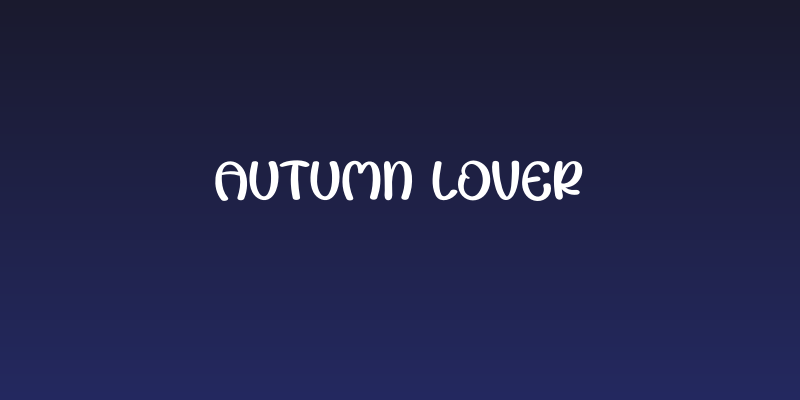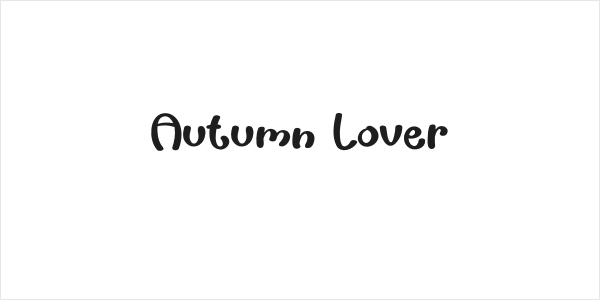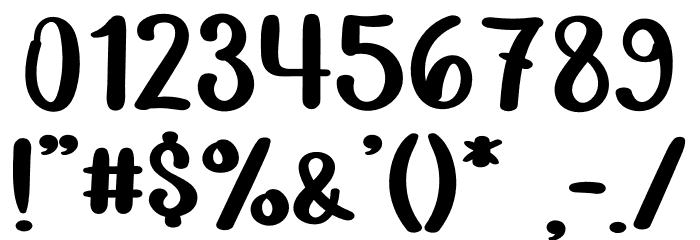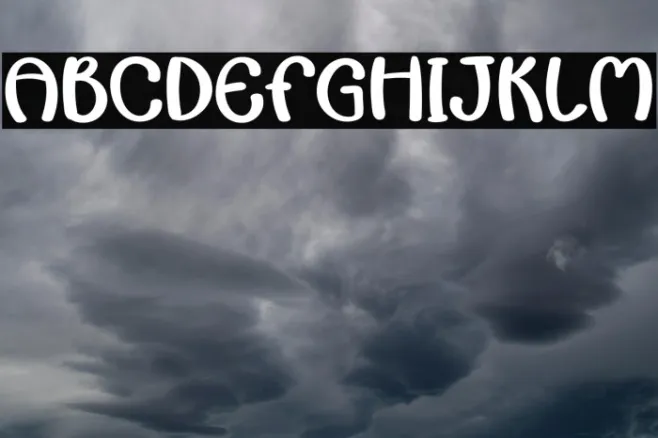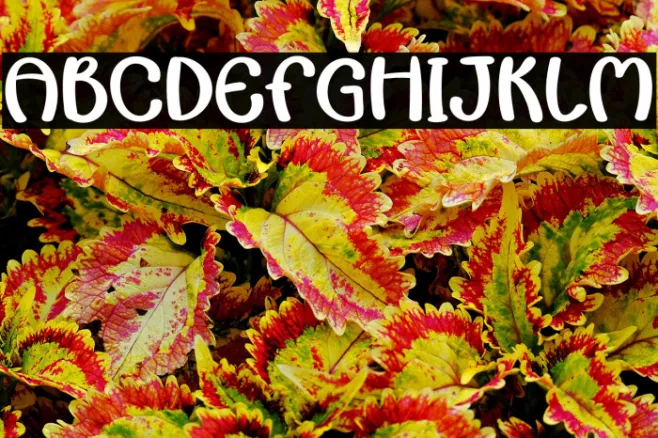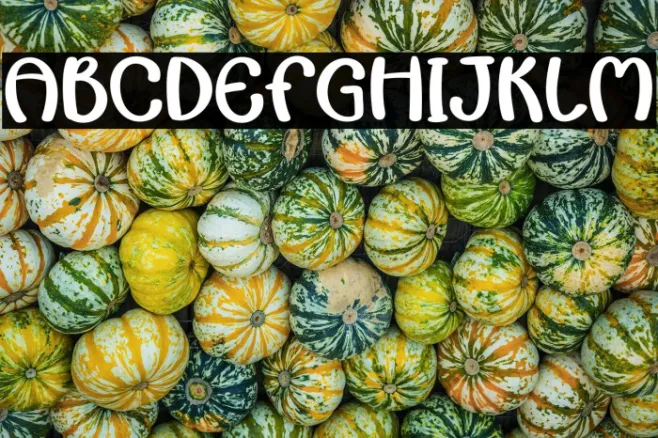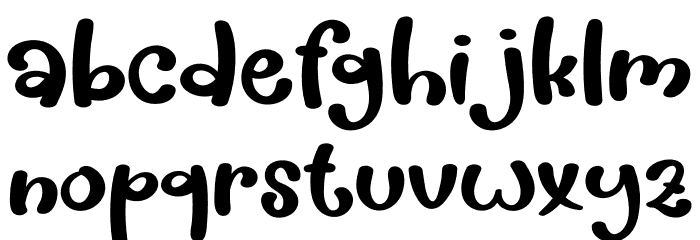
Autumn Lover Font
Autumn Lover Description
This playful and whimsical font features rounded, bold characters with a hand-drawn aesthetic. The letters have a consistent thickness, contributing to a cohesive and friendly appearance. The uppercase and lowercase letters maintain a uniform style, with slight variations that add charm and personality. Numbers and special characters are designed to match the overall playful theme, making them suitable for creative and informal projects. The font's smooth curves and lack of sharp edges give it a soft and approachable feel, ideal for designs that aim to convey warmth and friendliness.
| Proposed Projects | Ideal for children's books, greeting cards, playful branding, and social media graphics. |